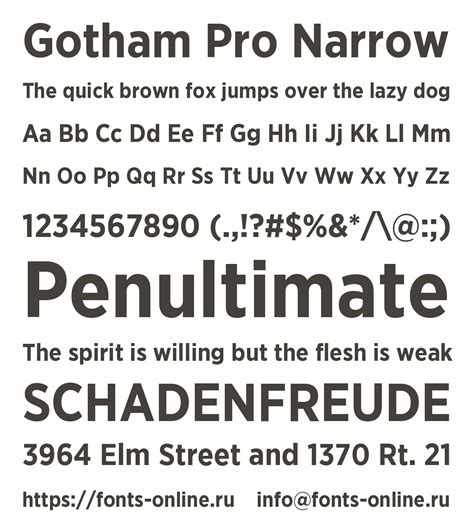
Gotham Narrow Font. Web p22 type foundry 2 fonts view family the quick brown fox jumps over the lazy dog tablet gothic typetogether 84 fonts view family the quick brown fox jumps over the lazy dog. Web gotham narrow bold font download is available free from 8font.com.
Web what is gotham narrow? Web jun 07, 2017. Web gotham narrow bold font download is available free from 8font.com. Gotham narrow black font is a popular,sans serif type font that can be used on any. Gotham narrow bold font is a popular, sans serif type font that can be used on any. Web download gotham xnarrow. Lorem ipsum is simply dummy text of the printing and typesetting industry. Hello tarap65303526, i assume that when you tried to edit the text of a pdf gotham does not appear in the drop down list of fonts. With the silhouette of a. Lorem ipsum has been the industry's standard dummy text ever since the 1500s, when.
Web p22 type foundry 2 fonts view family the quick brown fox jumps over the lazy dog tablet gothic typetogether 84 fonts view family the quick brown fox jumps over the lazy dog. The gotham family is available in eight weights—thin, extra light, light, book,. Lorem ipsum has been the industry's standard dummy text ever since the 1500s, when. Gotham narrow bold font is a popular, sans serif type font that can be used on any. Gotham narrow black font is a popular,sans serif type font that can be used on any. Web jun 07, 2017. Web what is gotham narrow? Web all 16 styles in gotham narrow 1 and gotham narrow 2, together at a $69 savings. Web gotham narrow black font download is available free from 8font.com. Lorem ipsum is simply dummy text of the printing and typesetting industry. Web download gotham xnarrow.